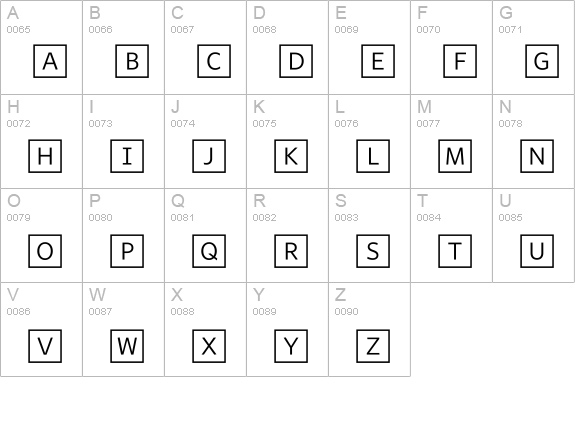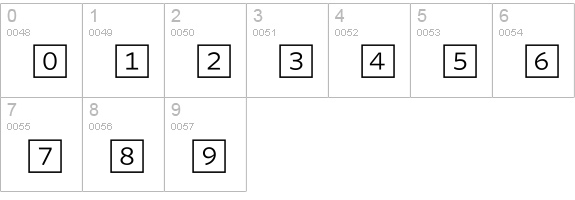
WhitneyIndexWhite-SquareLt1 is a stunning and contemporary font that exudes elegance and sophistication. Its clean lines and squared edges make it perfect for a variety of design projects, from logos and branding to headlines and titles. This font is the epitome of modernity, with its sleek and minimalistic appearance. With its generous spacing and tall letterforms, WhitneyIndexWhite-SquareLt1 captures attention effortlessly and ensures readability in any context. What sets this font apart is its versatility. Whether you're designing for print or digital media, WhitneyIndexWhite-SquareLt1 adapts seamlessly to any layout or format. Its timeless appeal makes it suitable for both professional and personal projects, be it for corporate presentations, wedding invitations, or creating stunning social media graphics. But what makes WhitneyIndexWhite-SquareLt1 even more appealing is the fact that it is freely available to download at FontsMarket.com. This font provides you with the opportunity to enhance your designs without any cost, making it a valuable asset for both established designers and aspiring creatives alike. So why wait? Take advantage of the elegance and versatility of WhitneyIndexWhite-SquareLt1, and elevate your design projects to new heights. Download this remarkable font from FontsMarket.com today and unlock a world of possibilities in your creative endeavors.